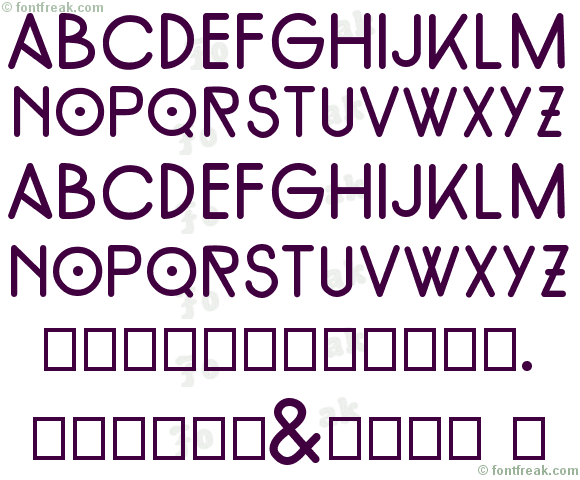
FoundationTitlesHand-SemiBold
About FoundationTitlesHand-SemiBold
FoundationTitlesHand-SemiBold is a distinctive display font designed by Roger Sperberg, available for free download. This font falls into the category of decorative typefaces, characterized by its unique and expressive style. The semi-bold weight provides a robust presence while maintaining an approachable feel, making it suitable for various creative projects.
Visually, the FoundationTitlesHand-SemiBold font features a clean and modern design with rounded edges and consistent stroke weight. Its playful yet sophisticated demeanor is enhanced by the slight contrast in thickness, allowing for versatility in application. The letterforms are well-spaced, promoting readability while retaining a dynamic visual appeal. The font exudes a handcrafted quality, giving it a personal touch that can elevate any design.
This font is perfect for a range of use cases. It shines in wedding invitations, where its charming characteristics can set a romantic tone. Additionally, it works well for movie posters, creating an eye-catching title that draws attention. Restaurant menus can benefit from its unique flair, making dishes stand out appealingly. Furthermore, graphic designers can employ this font in branding projects, allowing businesses to convey creativity and individuality.
Targeted towards graphic designers, small business owners, and content creators, the FoundationTitlesHand-SemiBold font is a versatile tool in any creative arsenal. Its charming aesthetics and readability make it a go-to choice for professionals looking to add a unique touch to their projects.
In conclusion, the FoundationTitlesHand-SemiBold font stands out due to its blend of playful design and functional readability. This combination makes it an essential addition for anyone looking to infuse creativity into their work. Don't miss the opportunity to enhance your projects with the FoundationTitlesHand-SemiBold font free download.